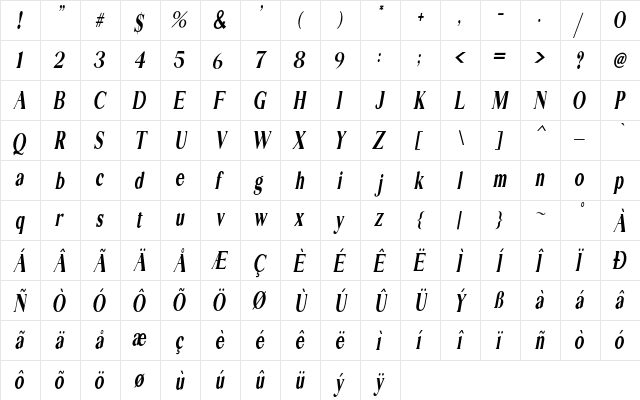
EXTRA Serif Italic
| Foundry | 177Studio |
| Designer | 177Studio |
Design Context for EXTRA Serif Typeface
EXTRA Serif carries the refined structure of traditional serif typography, with bracketed terminals and considered proportions that communicate credibility and craft. Its italic angle brings a sense of urgency and motion to the letterforms.